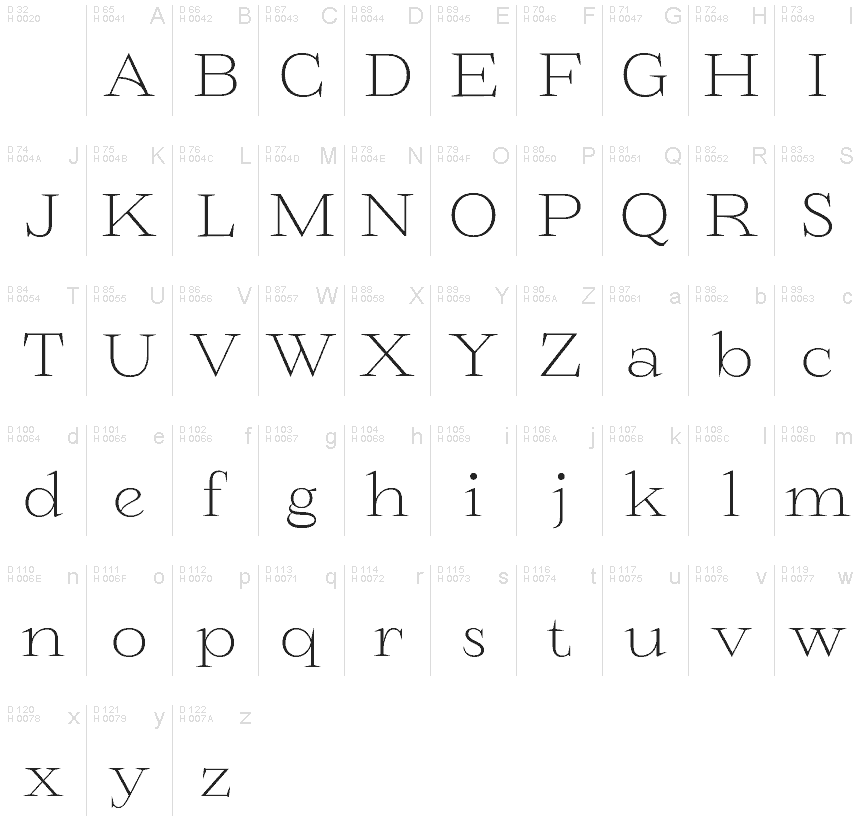
CS Daily Demo Regular
CS Daily font by Craft Supply Co. is an elegant serif typeface with a refined vibe. Its classic and sophisticated appearance makes it perfect for adding a touch of grace to any project, especially designed ones that need to impress audiences immediately.
Make the most out of this free serif font in packaging, advertising prints, newspapers, magazines, book covers, branding projects, logo designs, posters and so much more. The typeface has lowercases that harmonize perfectly with its decorative capitals.